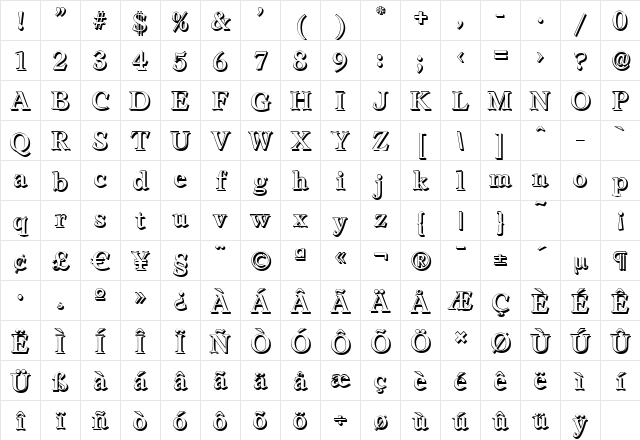
LeamingtonShadow Regular Free Font
LeamingtonShadow Regular
LeamingtonShadow Family
Complete LeamingtonShadow Regular glyph index. Displaying only characters natively supported by LeamingtonShadow Regular font.
Design Context for LeamingtonShadow
LeamingtonShadow is built around its visual character rather than neutral utility - its distinctive forms are designed to make an impression at display sizes.
Font Pairing: Pair with a clean neutral sans-serif for body copy to let LeamingtonShadow's character lead without overwhelming the composition.
Pro Tip: Use LeamingtonShadow exclusively at display sizes - it was designed to be seen, not read at length. Let a neutral companion handle body copy.